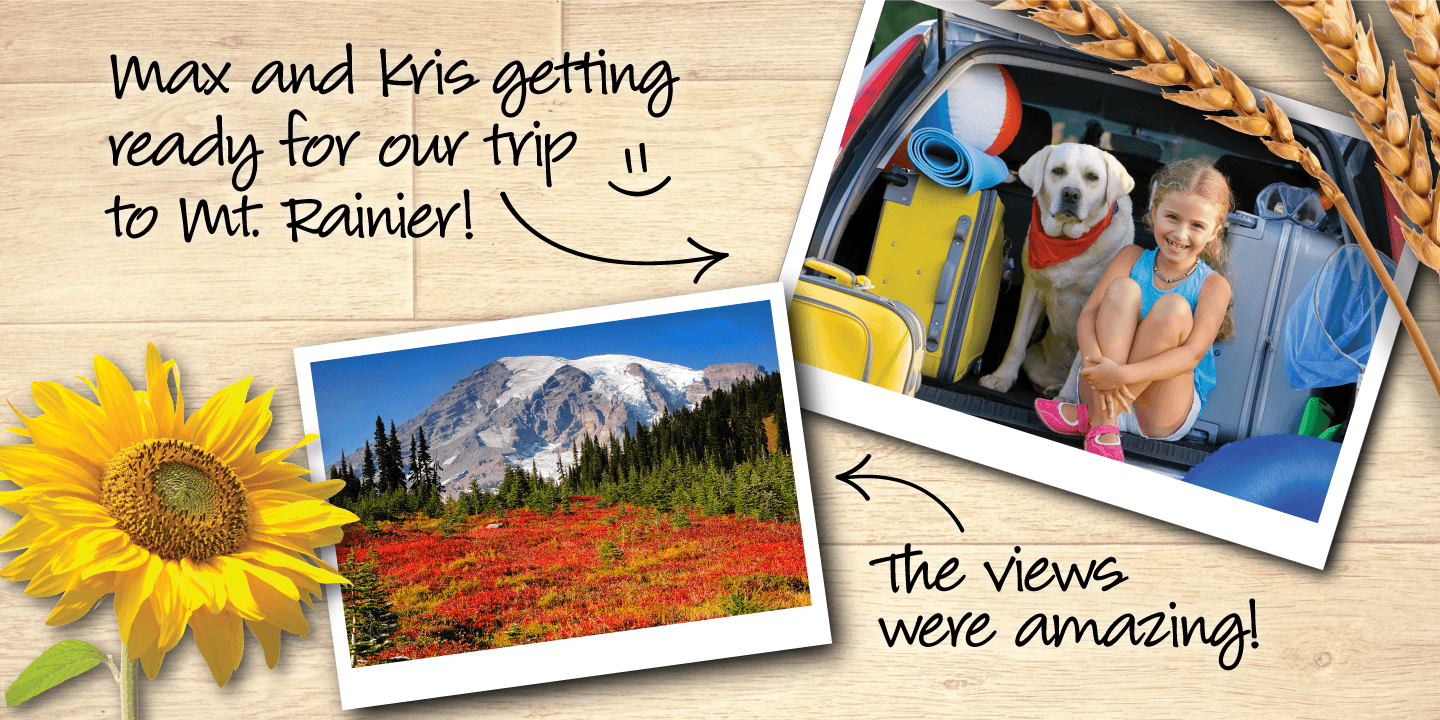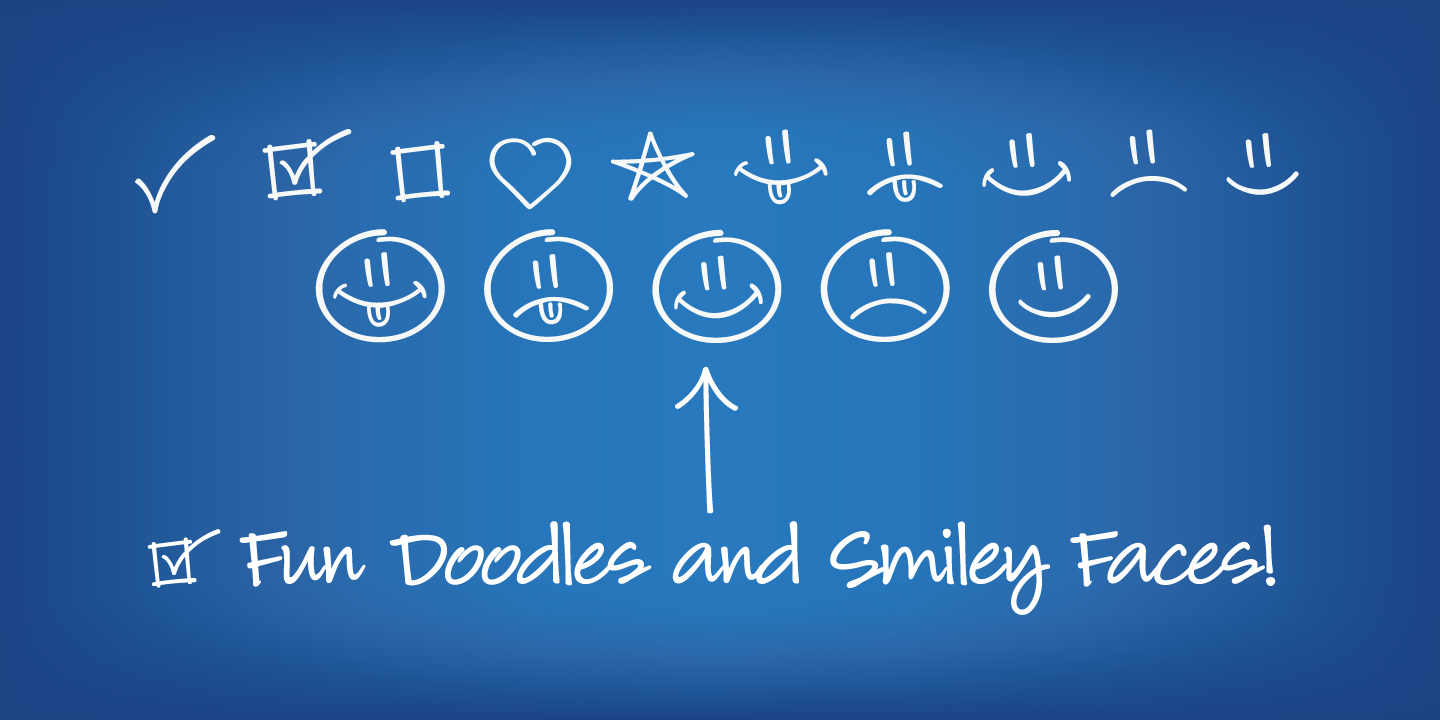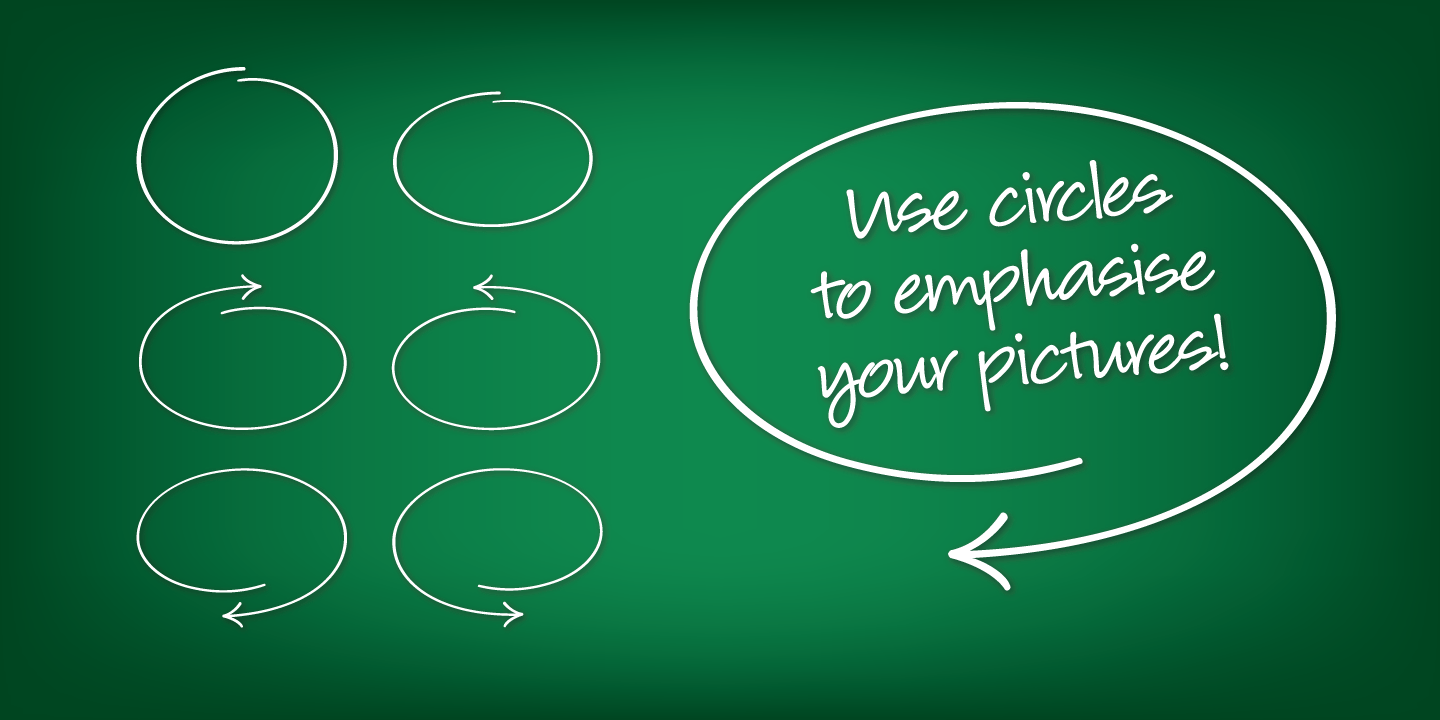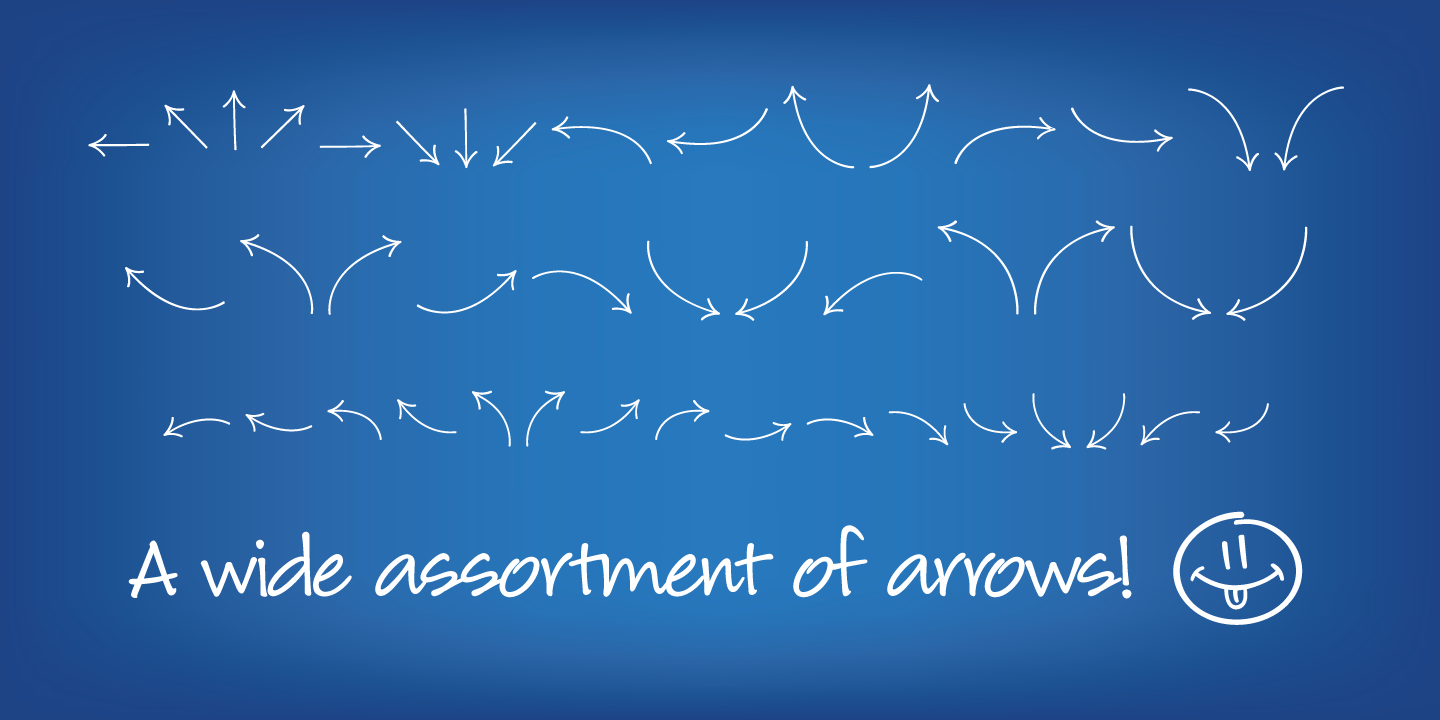
HomeFont BrosDingbatLouisiana Grab Bag Dingbat Louisiana Grab Bag FacebookXPinterestWhatsApp 1 of 5 About Louisiana Grab Bag is a fun little add-on to Louisiana. Chockfull of arrows, smiley faces and other little goodies.  DOWNLOAD NOW People also explored Be Breast Beware Font Garonila Annattasya Font Grafyk Font California beach font duo TF-Bronco Font Enthra Centro Scientia Venit Font Good Luck Font Nice Enjoy Font 250 0 TagsLouisiana Grab Bag Font Previous articleBigelow Rules ProNext articleWe The People LEAVE A REPLY Cancel reply Comment: Please enter your comment! Name:* Please enter your name here Email:* You have entered an incorrect email address! Please enter your email address here Website: Save my name, email, and website in this browser for the next time I comment. Personal Use Free Party Pooper Personal Use Free Read more about this font Concre Personal Use Free Read more about this font Sushi Stroke Personal Use Free Read more about this font Winner Personal Use Free Read more about this font BLOG Best Fonts for YouTube Videos: Make Your Thumbnails Stand Out Best Fonts for YouTube Videos: Make Your Thumbnails Stand Out Choosing the right font can make a massive difference in how your YouTube videos perform.... How to Cut Any Font on Cricut: Convert a Font to SVG (Free) Best Fonts for T-Shirt Design – Top 2025 Picks Elegant Wedding Invitation Fonts – Handwritten & Script Fonts